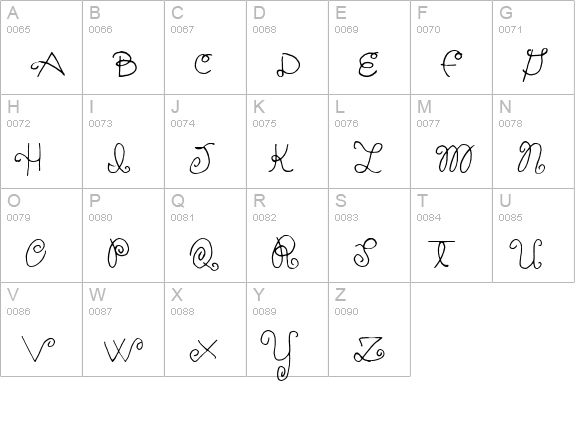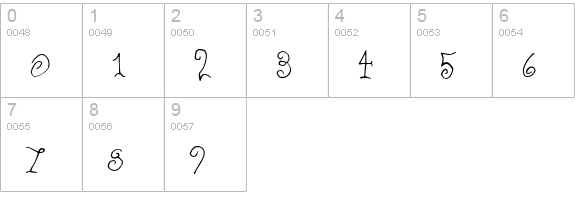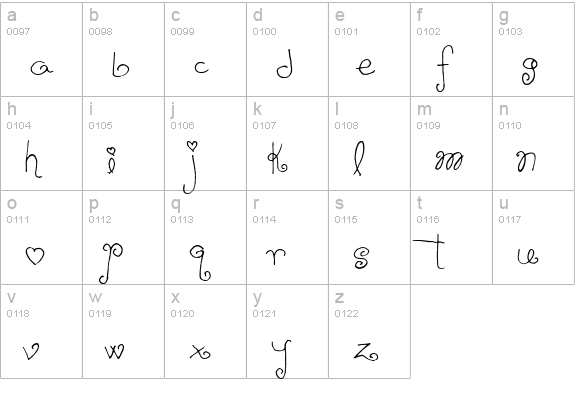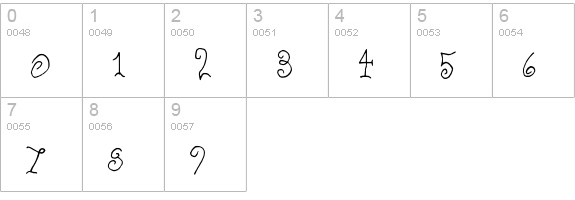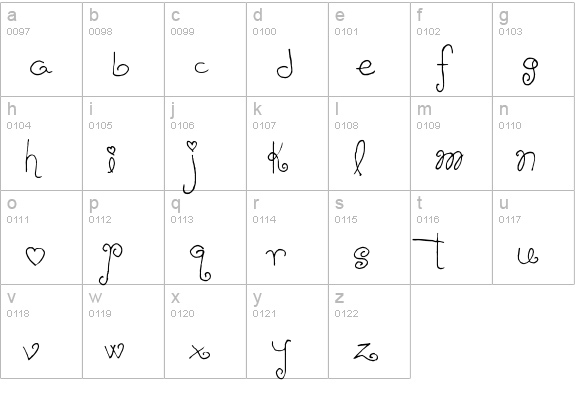
Schnookums Font Details
Schnookums font is a playful and whimsical typeface that will add a touch of charm and character to any design project. With its rounded edges and friendly letterforms, Schnookums font is perfect for creating eye-catching headlines, logos, and invitations. Whether you're designing a children's book, a greeting card, or a website for a fun-loving brand, Schnookums font will bring a smile to your audience's face. One of the best things about Schnookums font is that it is free! That's right, you can download this delightful font at absolutely no cost from FontsMarket.com. We believe that great design should be accessible to everyone, and that's why we're offering Schnookums font as a free download. So go ahead and unleash your creativity with this adorable typeface. Whether you're a professional designer or a hobbyist, Schnookums font is sure to inspire and delight.